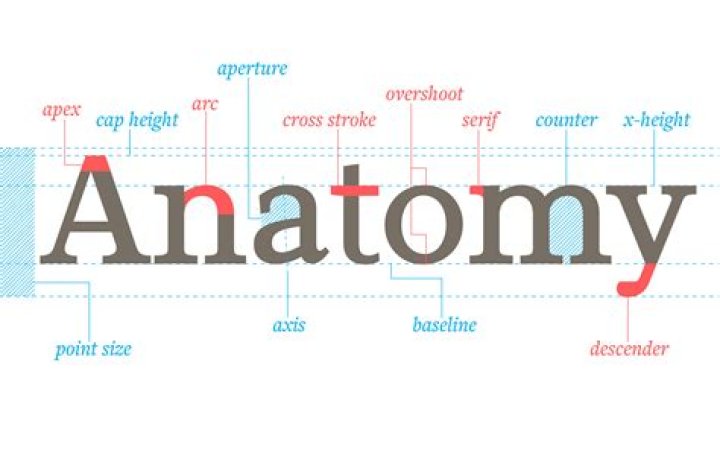
What is the anatomy parts of the fonts?
Typographic parts of a glyph: 1) x-height; 2) ascender line; 3) apex; 4) baseline; 5) ascender; 6) crossbar; 7) stem; 8) serif; 9) leg; 10) bowl; 11) counter; 12) collar/link/neck; 13) loop; 14) ear; 15) tie; 16) horizontal bar; 17) arm; 18) vertical bar; 19) cap height; 20) descender line.
What are the 5 types of typefaces?
There are five basic classifications of typefaces: serif, sans serif, script, monospaced, and display.
What are the 6 typefaces?
The 6 Types of Fonts
• Serif Fonts. Serif fonts have their origins in the Latin alphabet.
• Slab Serif Fonts. These are the bolder and chunkier versions of the serif fonts.
• Sans serif fonts.
• Script Fonts.
• Decorative Fonts.
• Handwritten Fonts.
What is the stroke of a letter?
Stroke refers to the main body of the letterform. They may be straight, as in letters like l, z, k, v or curved like in c or o. The different parts of the stroke are given below: The imaginary line on which most characters sit is known as the baseline (4).
What is font stroke?
It is a font form which hold the letter’s form only with information of centerline. In GP-Pro EX, it can enlarge the letter within the range of 6 to 127dot fonts, and display the letter beautifully.
How many font families are there?
Font Families: Serif, Sans-serif, and others In CSS (and in typography in general) there are five basic types, or families, of fonts: serif, sans serif, cursive, fantasy, and monospace.
What is the line on the T called?
The horizontal line on t and T could be called a bar. In English we have an expression “dot the i’s and cross the t’s”, meaning to take care of all the small details.
What is the horizontal line in the letter a called?
Cap height: The imaginary horizontal line that marks there all capital letters end at the highest point. Crossbar: The horizontal line that connects two other lines in a letter such as “A” or “H”.